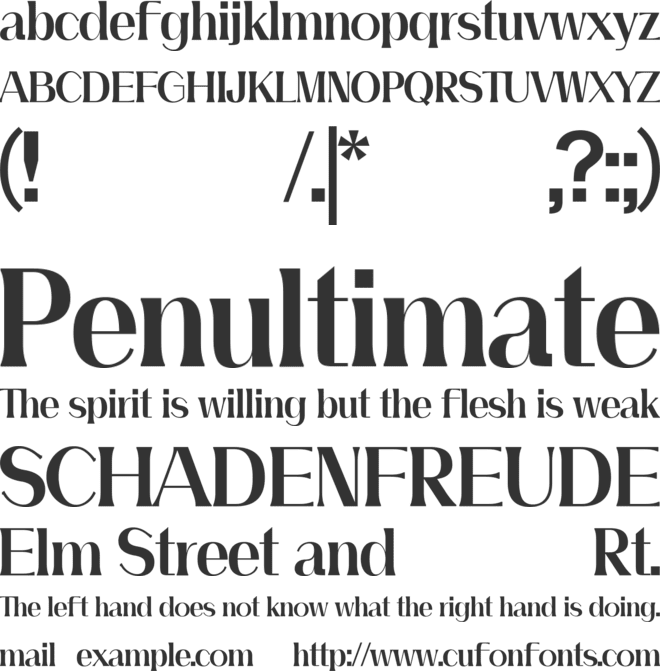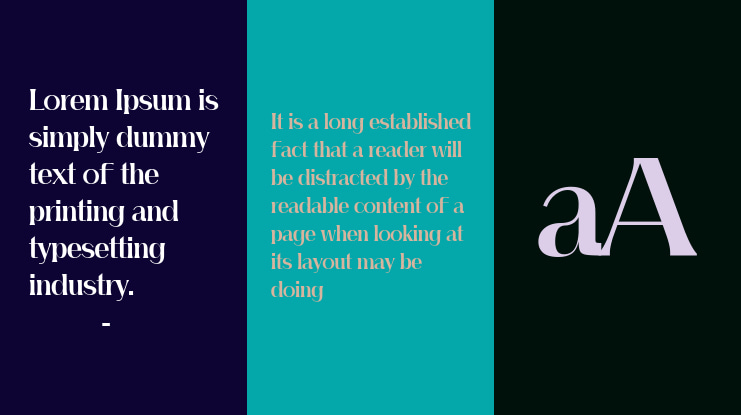
π¨ Font Name: EMILIA by Minimalist Art Studio
π¨ Font Description: EMILIA is a delicate serif with romantic curves and multilingual grace, perfect for wedding stationery, branding, and editorial beauty.